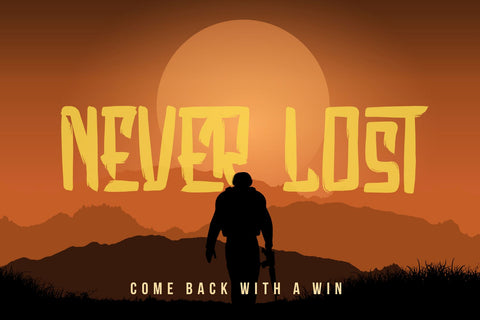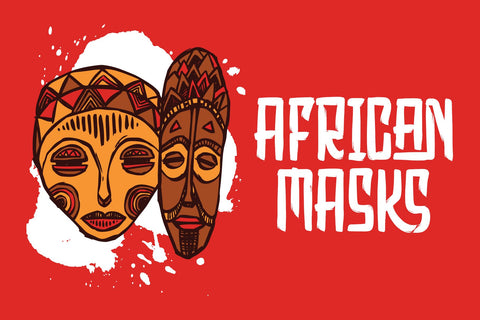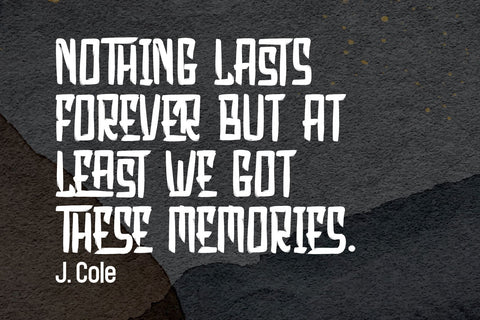
Exercise - Handbrush Typeface
Exercise - Handbrush Typeface created with a brush application consisting of Uppercase only. This font will help you in making titles and will be more suitable for movie titles. equipped with extraordinary ligatures that will turn an ordinary design into a perfect one.
Exercise is perfect for design, movie titles, logos, social media, branding, advertising, product design, handwritten quotes, product packaging, headers, posters, merchandise, and other designs.
+ Standard glyphs
+ Uppercase
+ Ligature
+ Multilingual Accent